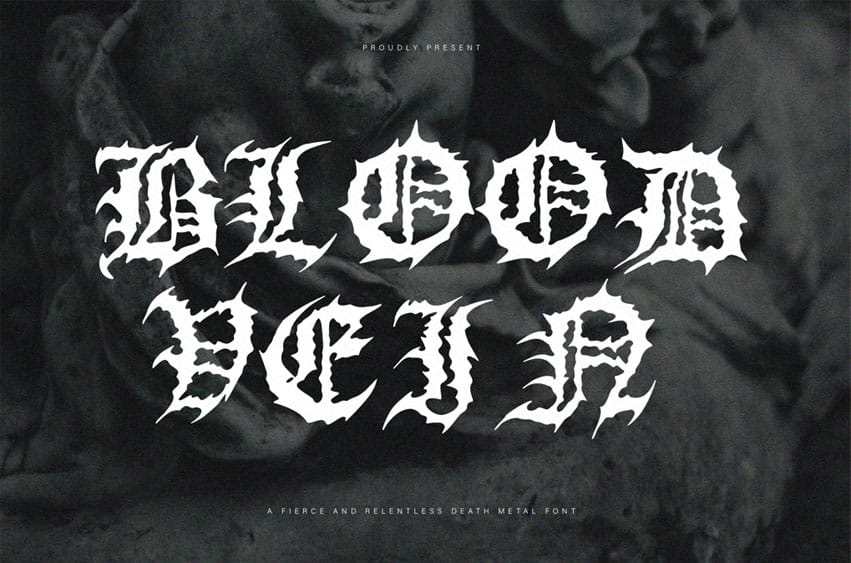
Bloodvein Deathmetal Font is a fierce and relentless death metal font that embodies the raw intensity and visceral energy of extreme music.
With its sharp, blood-curdling edges and twisted, aggressive forms, Bloodvein evokes a sense of dark power and violent force.